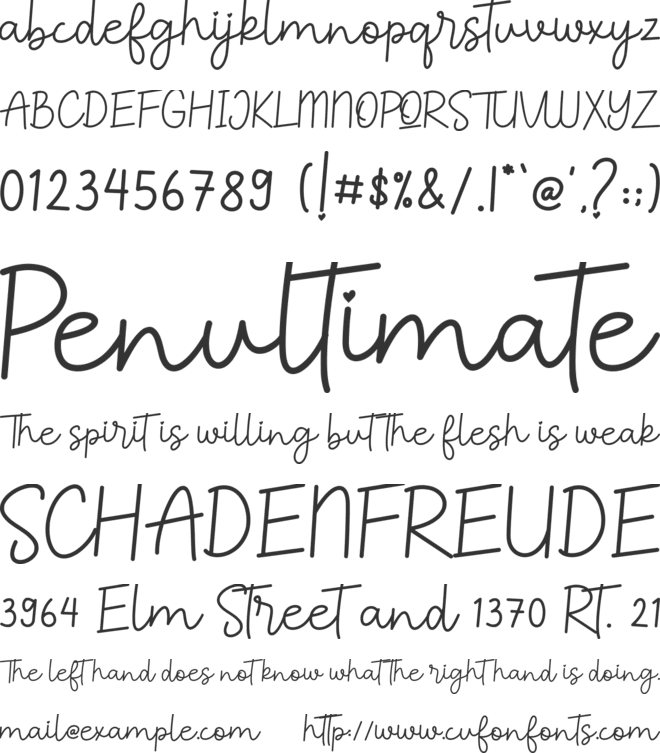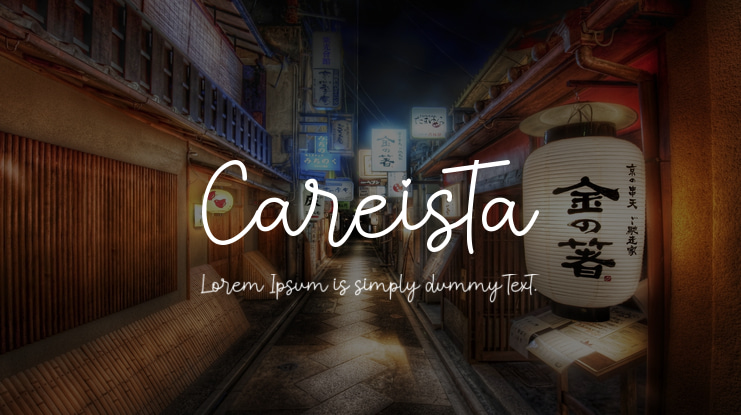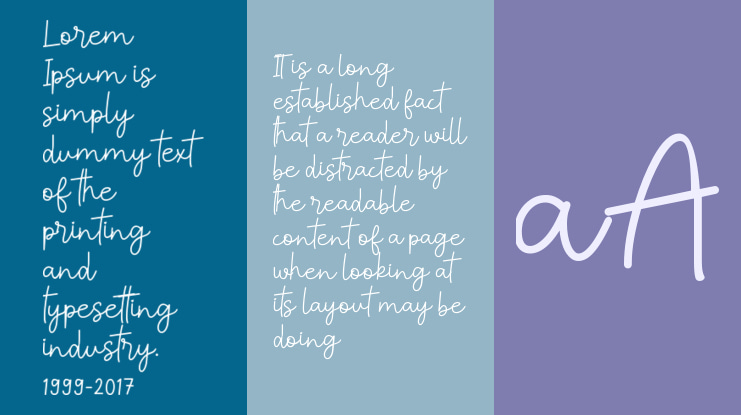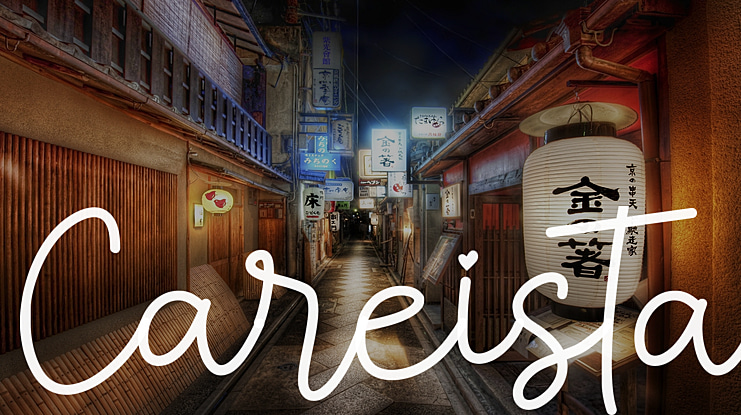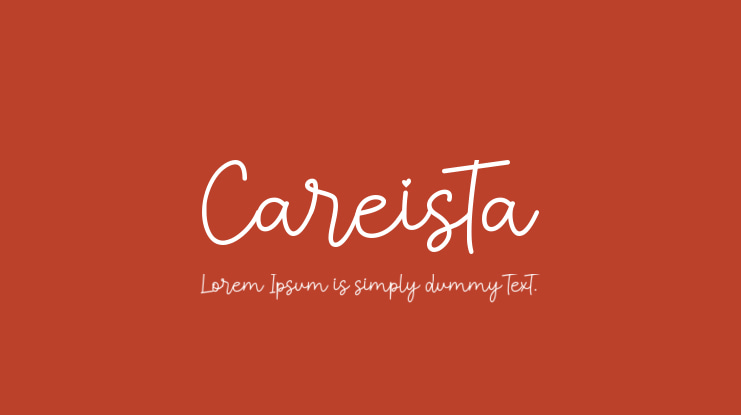
Careista Font
AEN Creative Studio 2020
Careista is a sweet and flowing handwritten font. It is PUA encoded which means you can access all of the glyphs and swashes with ease! It maintains its classy calligraphic influences while feeling contemporary and fresh. Fall in love with its incredibly distinct and timeless style and use it to create spectacular designs!
Careista font preview